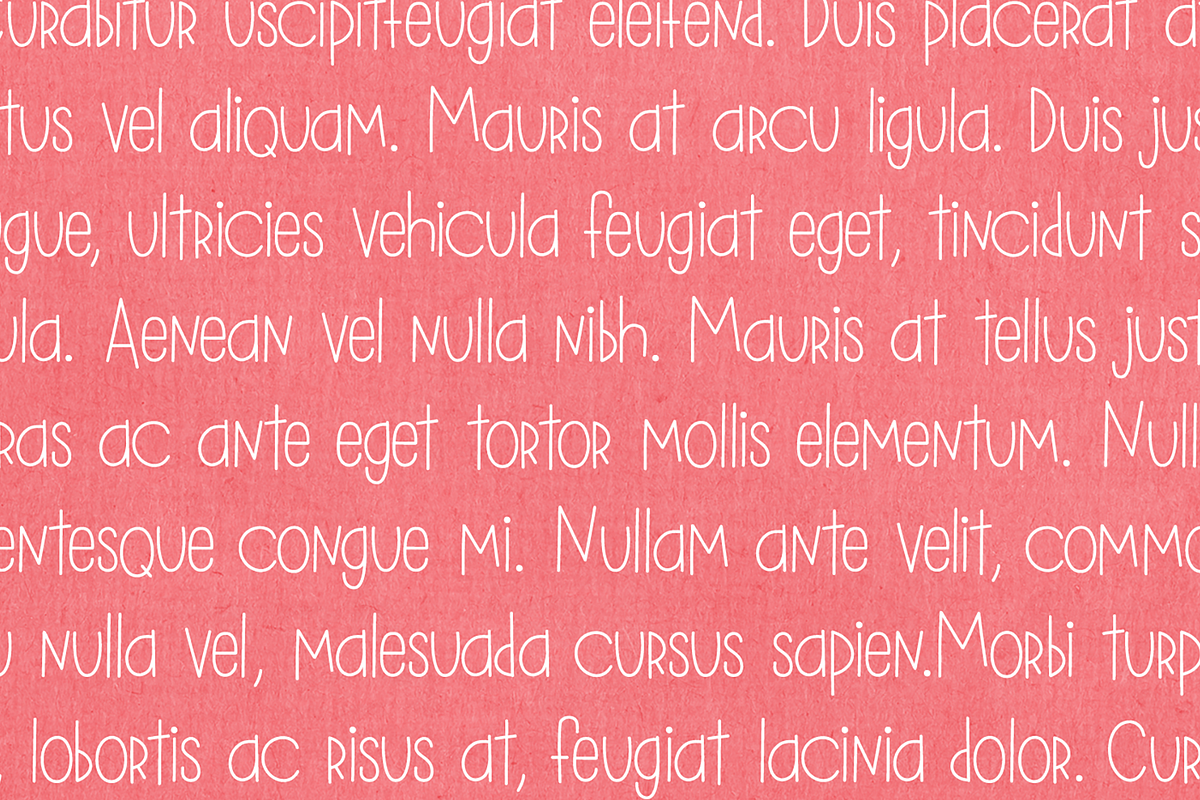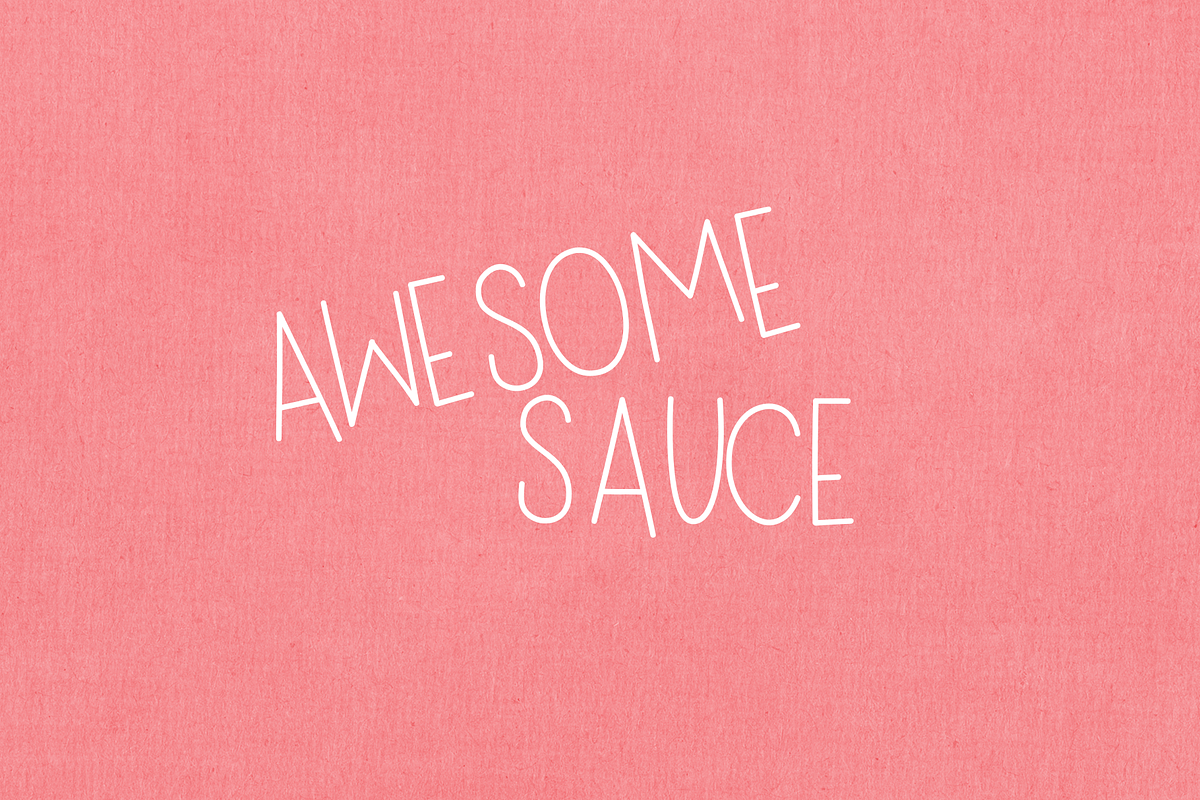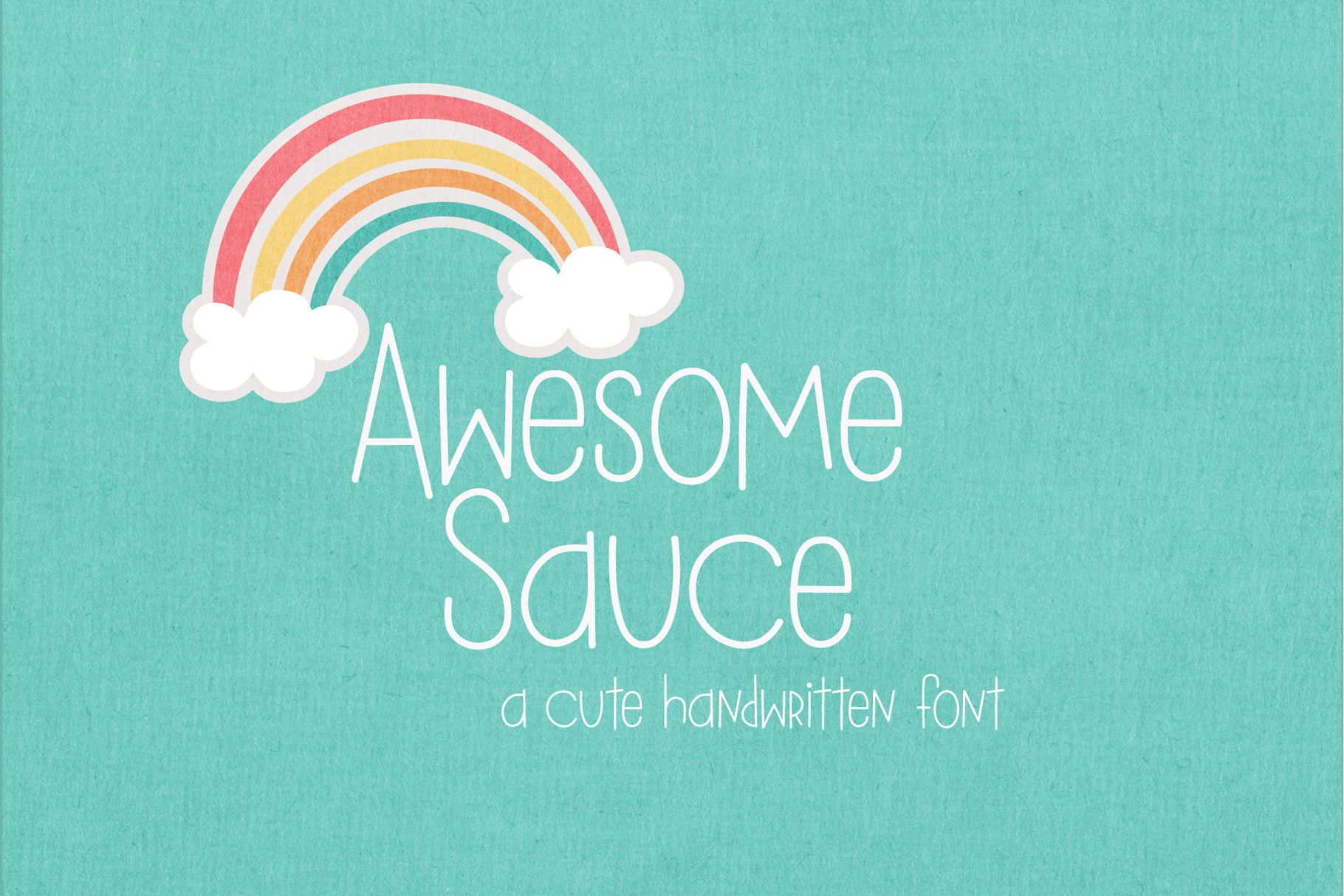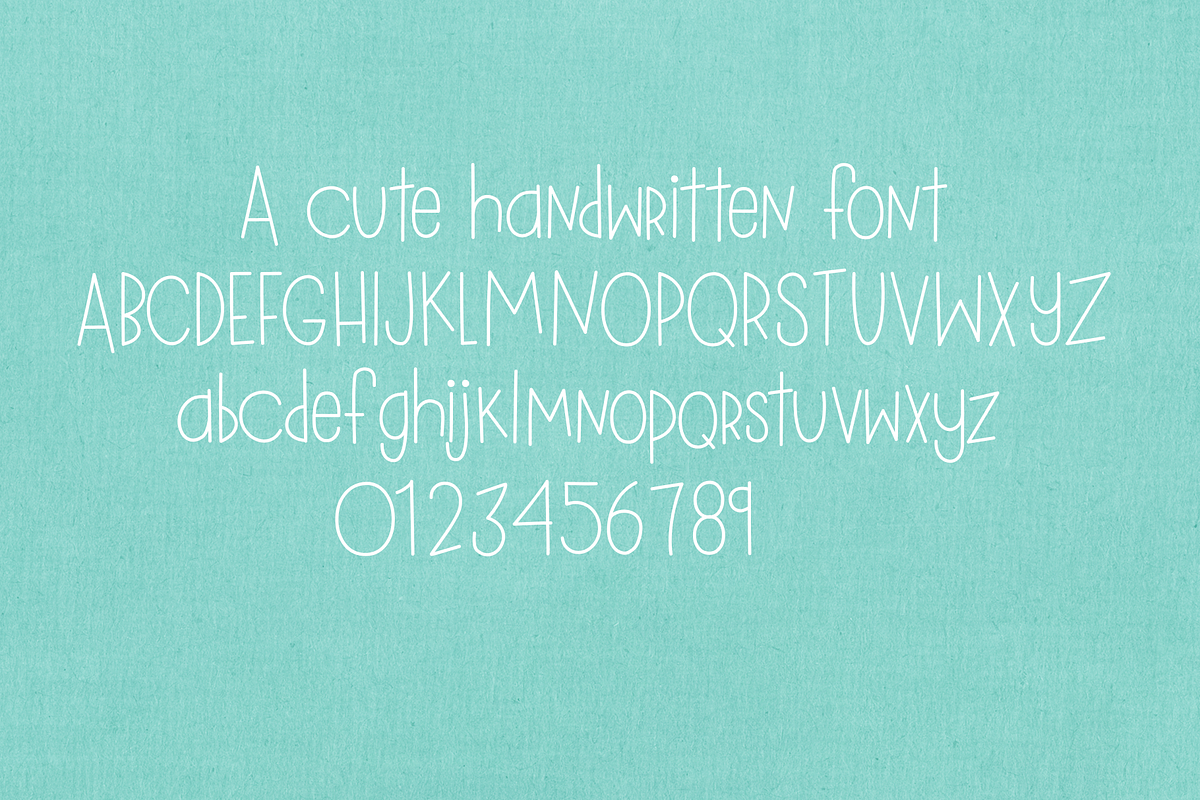
Awesome Sauce Cute Handwritten Font
Introducing a cute handwritten font!
Perfect for greeting cards, branding, stationery, social media, scrapbooking, prints and more!